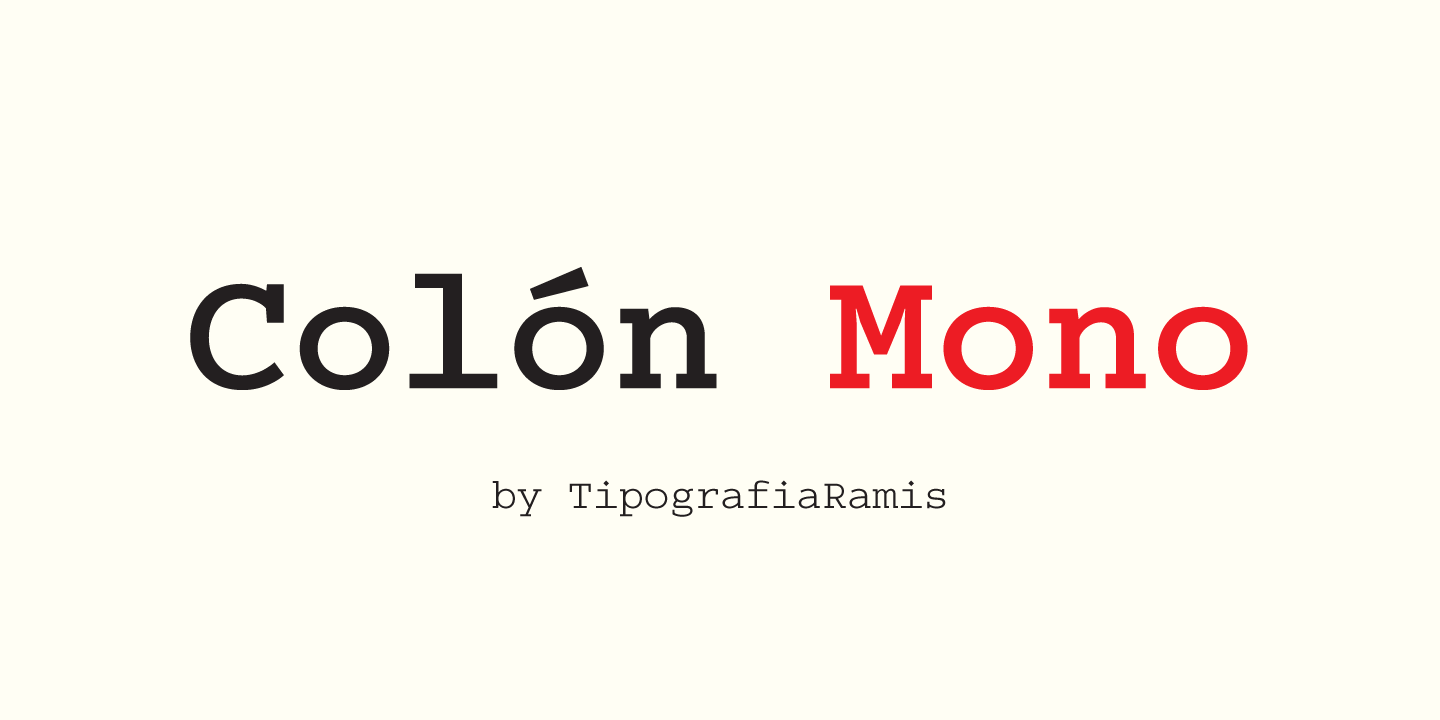
The Colon Mono Font is perfectly designed for a wide range of technical and creative applications including code editors, programming interfaces, terminal windows, data visualization, technical documentation, digital displays, cryptocurrency platforms, gaming interfaces, cyberpunk-themed designs, and futuristic branding projects. Its monospaced character makes it particularly effective for software development, financial technology, scientific research, and any application requiring precise character alignment and enhanced readability in technical contexts.
What makes the Colon Mono Font incredibly exciting is its perfect balance between technical functionality and aesthetic appeal. This monospaced typeface combines the practical requirements of coding environments with sophisticated design elements that make it visually engaging for both developers and designers. The font's distinctive character emerges from its uniform character width, optimized letter spacing, and carefully crafted details that reduce eye strain during extended coding sessions while maintaining the crisp, professional appearance needed for modern digital interfaces and technical communications.
The Colon Mono Font family encompasses multiple weights and styles designed to accommodate various programming and design requirements. The collection typically includes light, regular, medium, bold, and black weights, with many versions offering italic variants that provide emphasis options for code comments and documentation. Some editions may include specialized characters, programming symbols, and mathematical operators that enhance the font's utility for developers, data scientists, and technical writers working across different programming languages and platforms.
Professional developers and technical designers consistently choose the Colon Mono Font Free Download for its exceptional legibility and coding-optimized features. The font features carefully engineered character differentiation that prevents common coding errors by making similar characters like 0/O, 1/l/I clearly distinguishable. Its robust construction ensures consistent performance across different operating systems and code editors, while the comprehensive character set includes all standard ASCII characters, programming symbols, and extended Latin support for international development teams and technical documentation.
The Colon Mono Font represents the evolution of monospaced typography for the modern digital age, combining traditional coding font principles with contemporary design refinements. Its technical precision provides the reliability needed for software development environments, while its refined aesthetics add professionalism to technical presentations and documentation. The font's remarkable versatility makes it equally effective for traditional coding applications and creative projects requiring a technical, futuristic aesthetic.